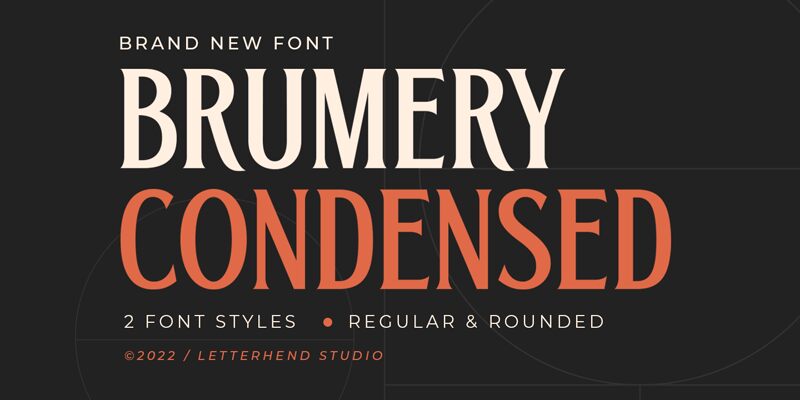
Brumery, a distinct creation by Letterhend Studio, emerges as a serif font with a decidedly condensed width that commands attention. Its slim profile exudes elegance and sophistication, making it an impeccable choice for those seeking to impart a sense of exclusivity and refinement in their designs. The strong vertical emphasis of Brumery's characters is balanced by the subtle serifs, contributing to its sleek yet approachable aesthetic.
The font's condensed nature not only allows for efficient use of space but also offers an impactful visual statement, ideal for headlines or branding where clarity and distinction are paramount. Brumery's versatility extends to both print and digital landscapes, where its sharp serifs can provide an arresting contrast against minimalist backdrops or complement more elaborate design elements.
With its stylish contours and polished finish, Brumery stands out as a font that can elevate any creative project—be it editorial layouts, sophisticated logos, or compelling advertising campaigns—making it a valuable asset in the toolkit of designers aiming to leave a lasting impression.